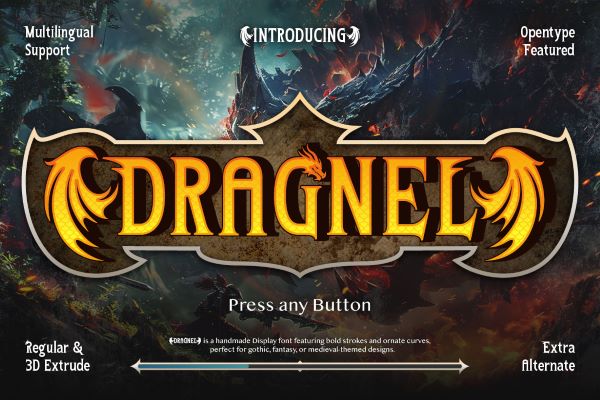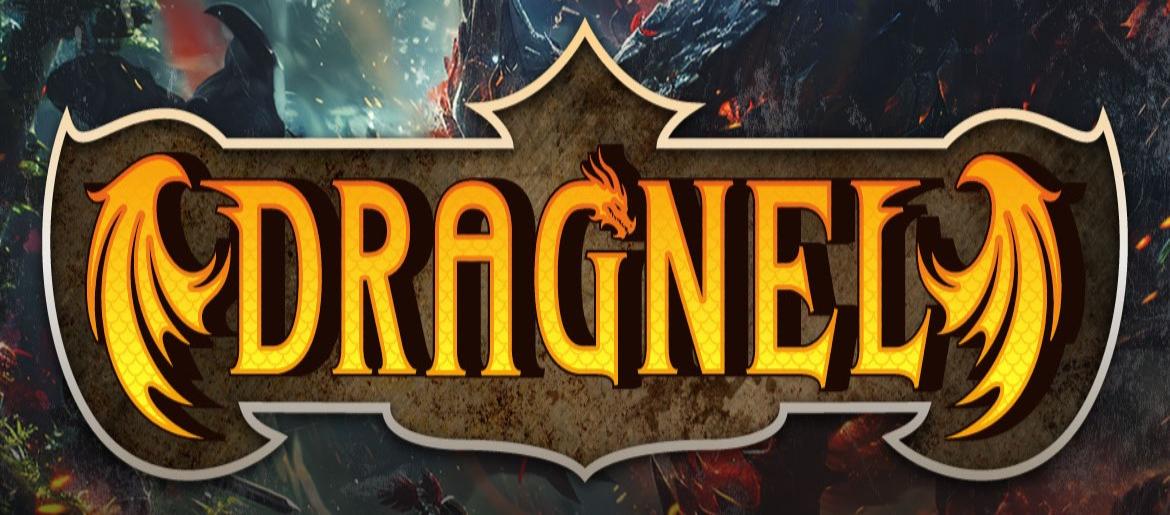
Dragnel Font
Dragnel by Eric Burntilldead is a fantasy display typeface forged in the spirit of ancient legend. Drawing on the visual language of dragons, medieval warriors, and epic adventure, its bold strokes and fiery curves bring an unmistakable sense of scale and drama to any composition. The typeface comes in two styles — Regular and 3D Extrude — alongside a set of alternates that deepen its mythic character, allowing designers to dial up or down the intensity depending on the project. It’s built for game titles, fantasy book covers, movie posters, band logos, and anywhere a headline needs to carry the weight of a whole world behind it. Free for personal use.